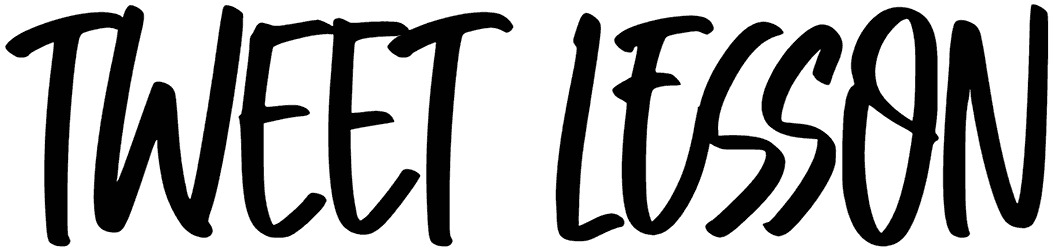
Tweet Lesson Font
Displaying words with a manuscript and contemporary look can make the text more impactful on the audience in various novel designs. Tweet Lesson font with a smooth and casual vibe will give this outward to your layouts. This handwritten font doesn’t support lowercase letters and some numbers, but can still be a nice choice for many designs, from postcards to banners.